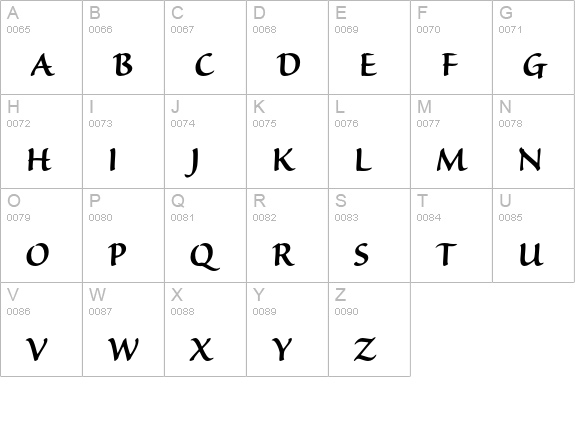
Sanvito Pro Semibold Caption is a sub-bold, structured variant in the Sanvito typeface family \xE2\x80\x94 well suited to sub-headlines and emphasised passages.
Sanvito Pro Semibold Caption is a captivating font that exudes elegance and sophistication. With its precise lines and carefully crafted curves, this font is perfect for adding a touch of class to any design project. The semibold weight adds a sense of authority and presence, making it ideal for headlines and captions. One of the standout features of Sanvito Pro Semibold Caption is its versatility. Whether you're creating a magazine layout, designing a logo, or crafting an invitation, this font can effortlessly adapt to any style or theme. Its clean and modern aesthetic ensures that your text will always look professional and polished. But what truly sets Sanvito Pro Semibold Caption apart is that it is free. Yes, you read that right. This exceptional font is freely available to download at FontsMarket.com. Now you can enhance your designs without breaking the bank. This generous offer makes Sanvito Pro Semibold Caption a must-have for designers, students, and anyone who appreciates high-quality fonts. In addition to its stunning design and affordability, Sanvito Pro Semibold Caption also boasts an extensive character set. It supports multiple languages and includes a wide range of punctuation marks and symbols. This ensures that you have the flexibility to express your creativity and communicate your message effectively. Whether you're creating captivating advertisements, designing eye-catching banners, or crafting beautiful typography, Sanvito Pro Semibold Caption is the perfect choice. Its elegance, versatility, and affordability make it an invaluable asset in any designer's toolkit. Don't miss out on this incredible opportunity to elevate your designs with Sanvito Pro Semibold Caption – download it for free at FontsMarket.com today.